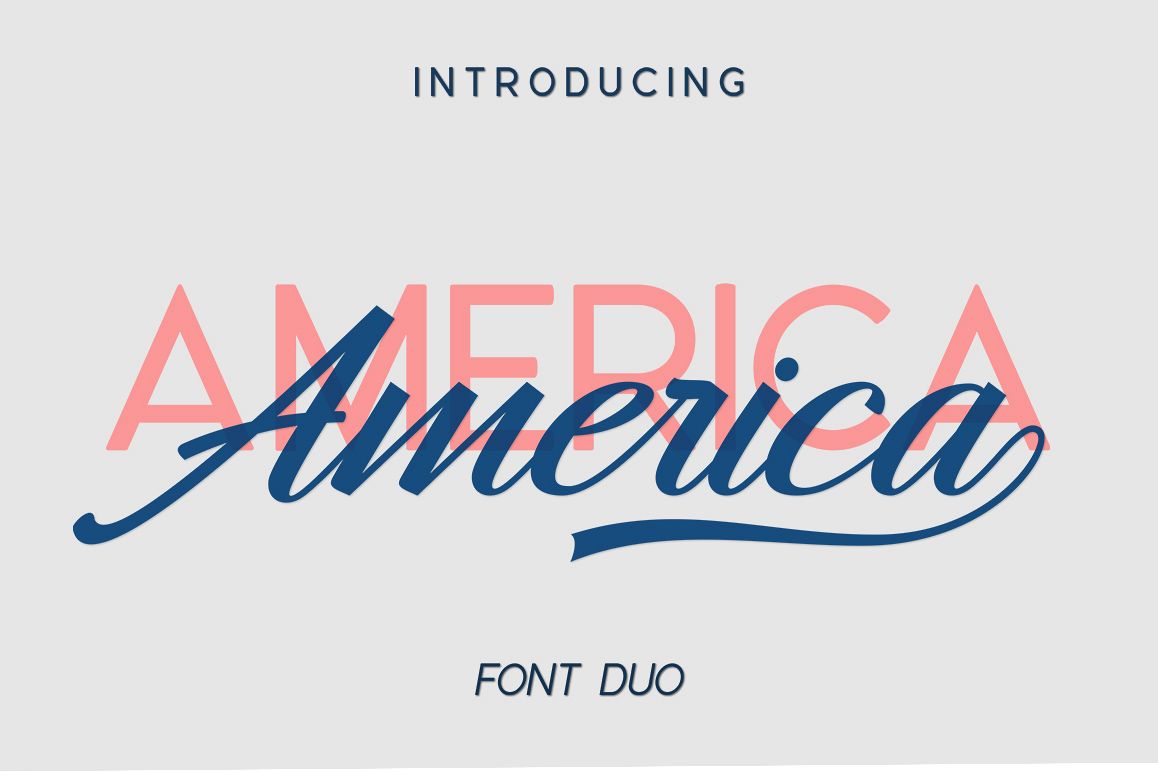
America Font Duo
America is a beautiful duo font that combines two trends (sleek sans serif caps and weird weird scripts) into one beautiful package. You will see more of this combination in the design world over the next year - so this is the package to help you get ahead!